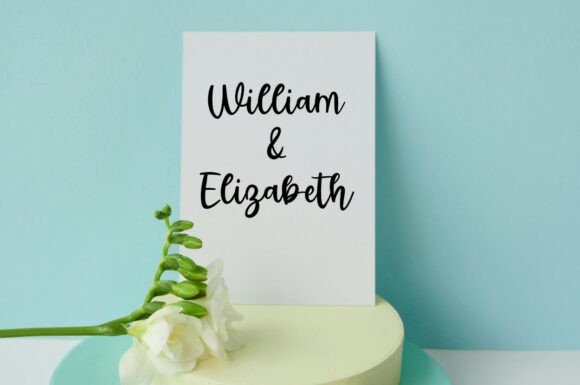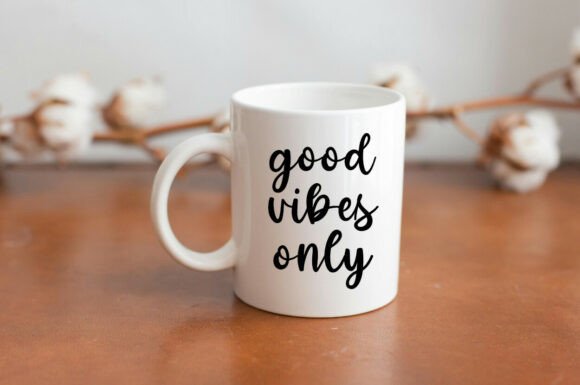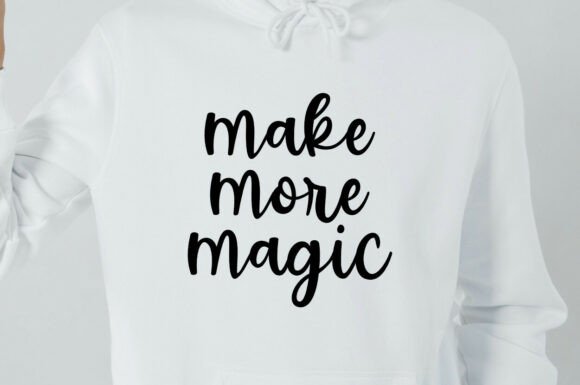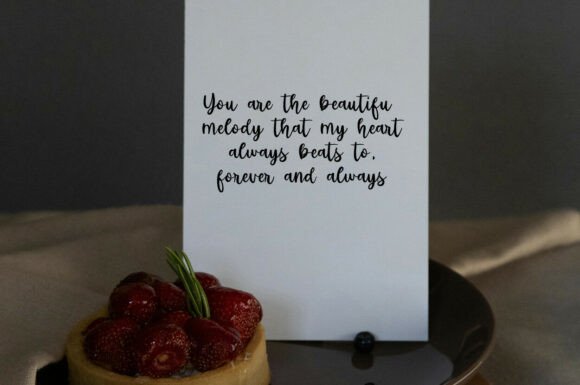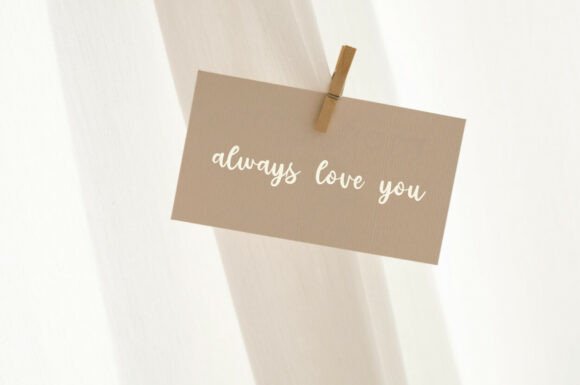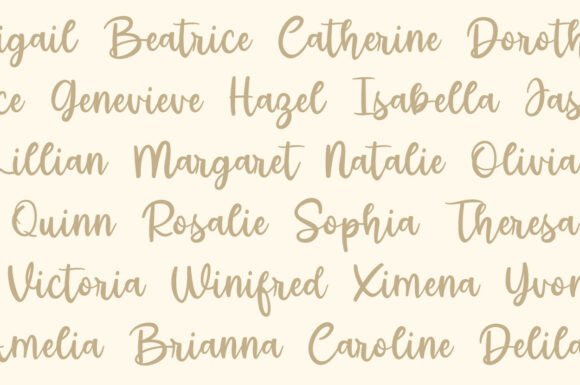
Unleashing the Warmth of Handwritten Charm
Have you ever received a handwritten note from a loved one, and the words seemed to leap off the page, radiating warmth and sincerity? That’s the kind of emotional connection Kindred Honey Font aims to evoke in your designs.
As a charming handwritten script font, Kindred Honey is designed to capture the authentic essence of a felt-tip pen, with a rhythmic, casual flow that’s perfect for conveying a sense of personality and character. Whether you’re crafting a boutique brand, designing a personalized greeting card, or packaging artisanal products, Kindred Honey Font brings a human-centric warmth to your visual identity.
For designers seeking to add a touch of organic charm to their work, Kindred Honey Font is a valuable asset, delivering a sense of curated simplicity and professional warmth that’s hard to find in more generic fonts.
Key Features of Kinded Honey Font
- Unique Characteristics: Kinded Honey Font features a unique blend of modern and vintage elements, with intricate details and subtle texture, giving it a distinctive look.
Kinded Honey Font Review
I recently had the chance to work with the Kinded Honey Font, and overall, I’m quite impressed. ✨ The font has a beautiful, elegant feel to it that makes it perfect for projects where you want to convey a sense of sophistication and refinement. The subtle texture and soft letterforms give it a unique, handmade look that’s hard to replicate with other fonts.
Here are some specific things that I love about Kinded Honey Font:
- ✨ The high level of customization options, including various font weights and styles, makes it easy to tailor the font to your specific project needs.
- ✨ The font is incredibly versatile and can be used for a wide range of applications, from branding and advertising to publishing and editorial content.
However, I do have a few concerns about the font:
- ⚠️ The font can be a bit difficult to read at very small sizes, which may be a limitation for projects where text needs to be displayed in tight spaces.
- ⚠️ The font’s unique texture and style may not be to everyone’s taste, and some designers may find it too busy or distracting.
Overall, I think Kinded Honey Font is a great addition to any designer’s toolkit. With its beautiful design, high level of customization, and versatility, it’s a great choice for a wide range of projects. However, it’s not perfect, and designers should be aware of its limitations before using it in their work.
Kinded Honey Font is perfect for:
- Branding and advertising materials
- Social media graphics and marketing materials
- Editorial and publishing materials